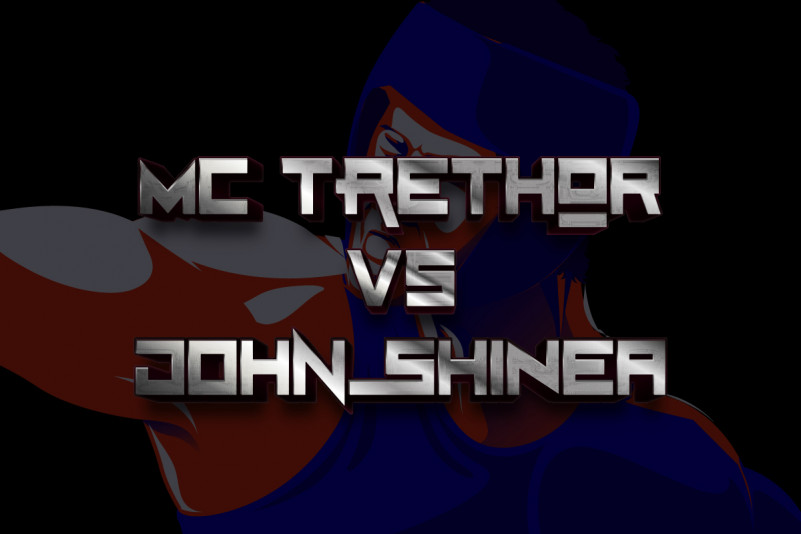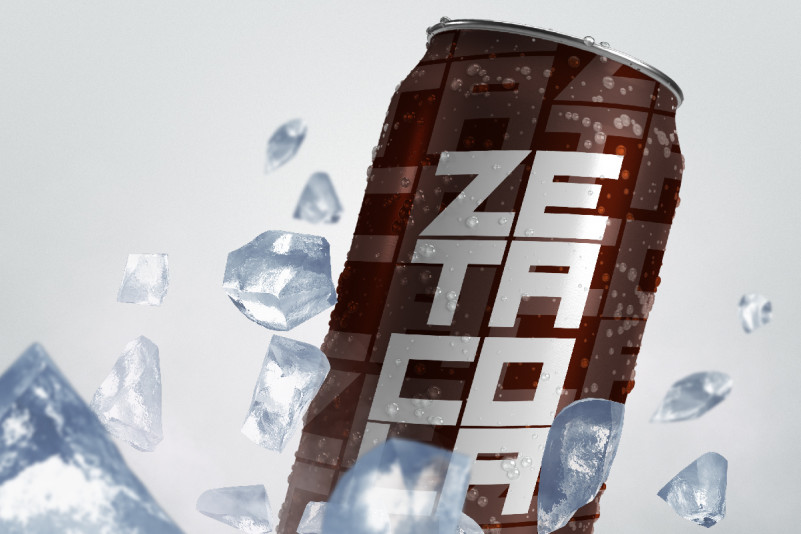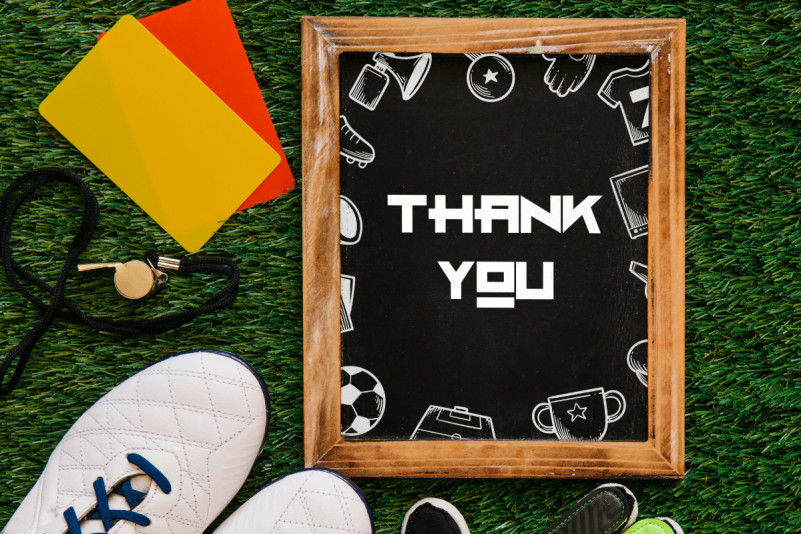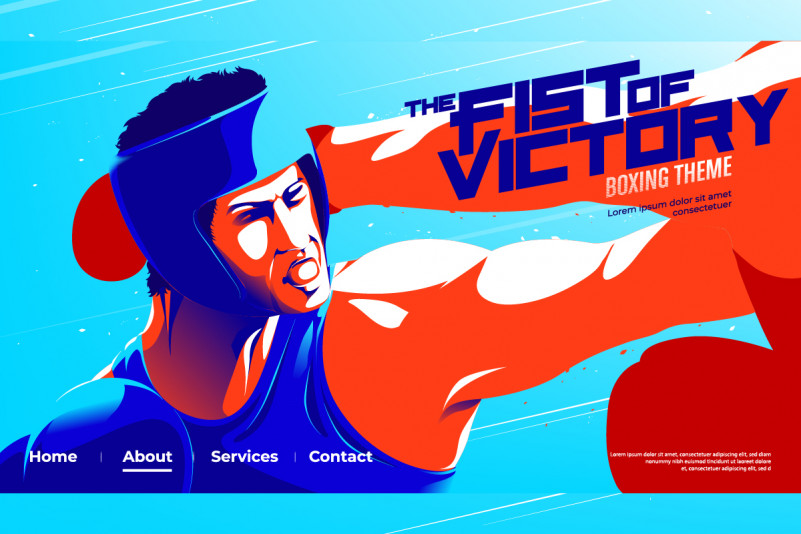
Fight Kick Font
Fight Kick Display Font
This is a sporty sans serif display font family. The style of this font are modern, techno, strong, masculine, sporty etc. Great for logo, brandings, headlines, signage etc. Fight Kick Font come with some ligatures like the “tr” , “sd”, etc, the ligatures will make the font stand out and really stunning unique. The font will be awesome for many industries including : sports, techno, festival, games, movies etc